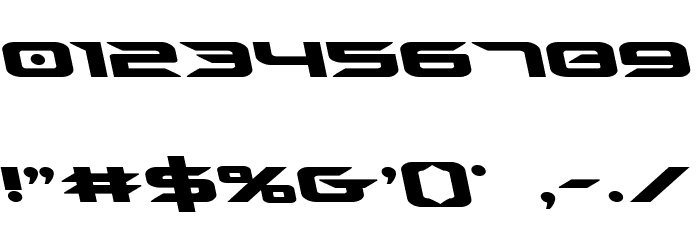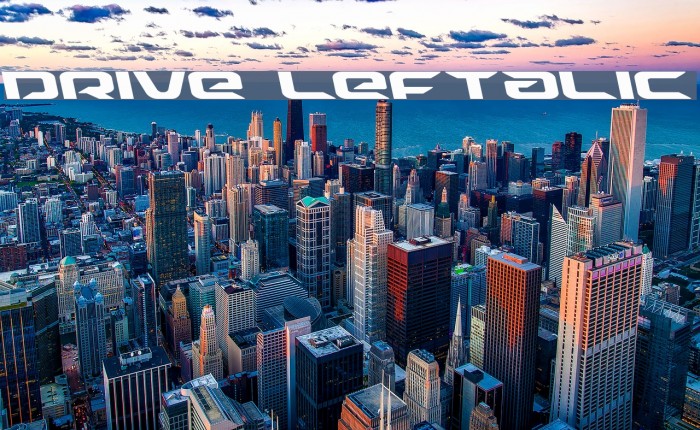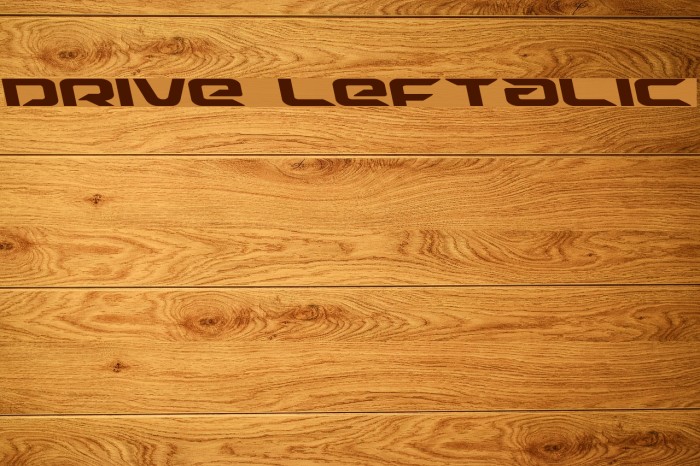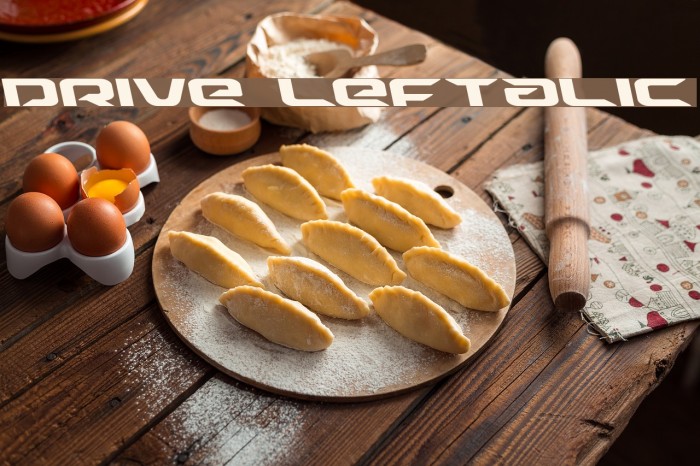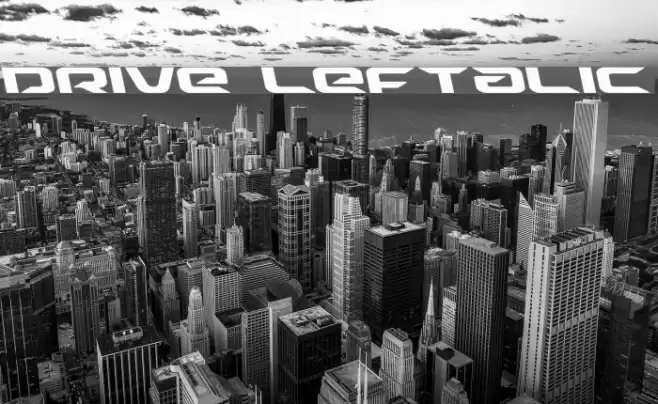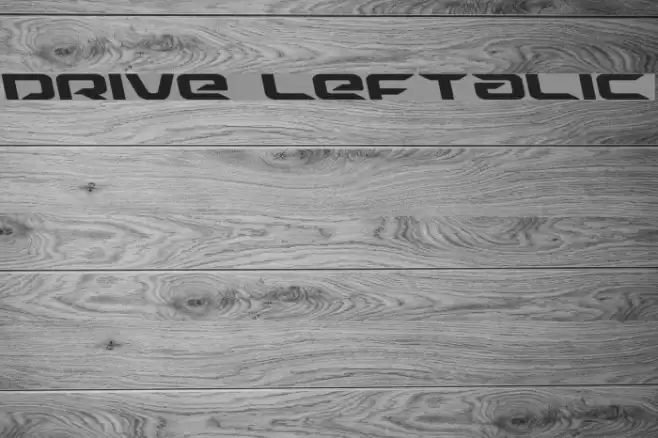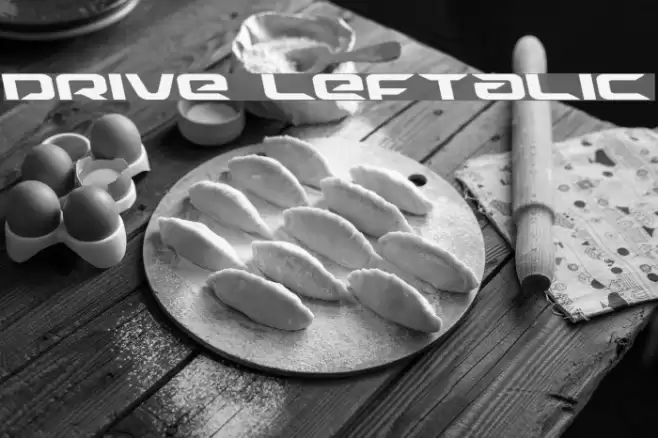
Drive Leftalic Font
This font features a bold and dynamic design with a futuristic flair. The characters are angular and slightly italicized, giving a sense of motion and speed. The strokes are thick and consistent, providing a strong visual impact. The overall design is sleek and modern, with a unique geometric style that stands out. The uppercase and lowercase letters maintain a uniform appearance, while the numerals and special characters complement the overall aesthetic. This font is ideal for projects that require a bold and contemporary look.
A bold, futuristic font with angular, italicized characters.
- Proposed Projects: Ideal for branding, sports team logos, automotive designs, and tech-related projects.